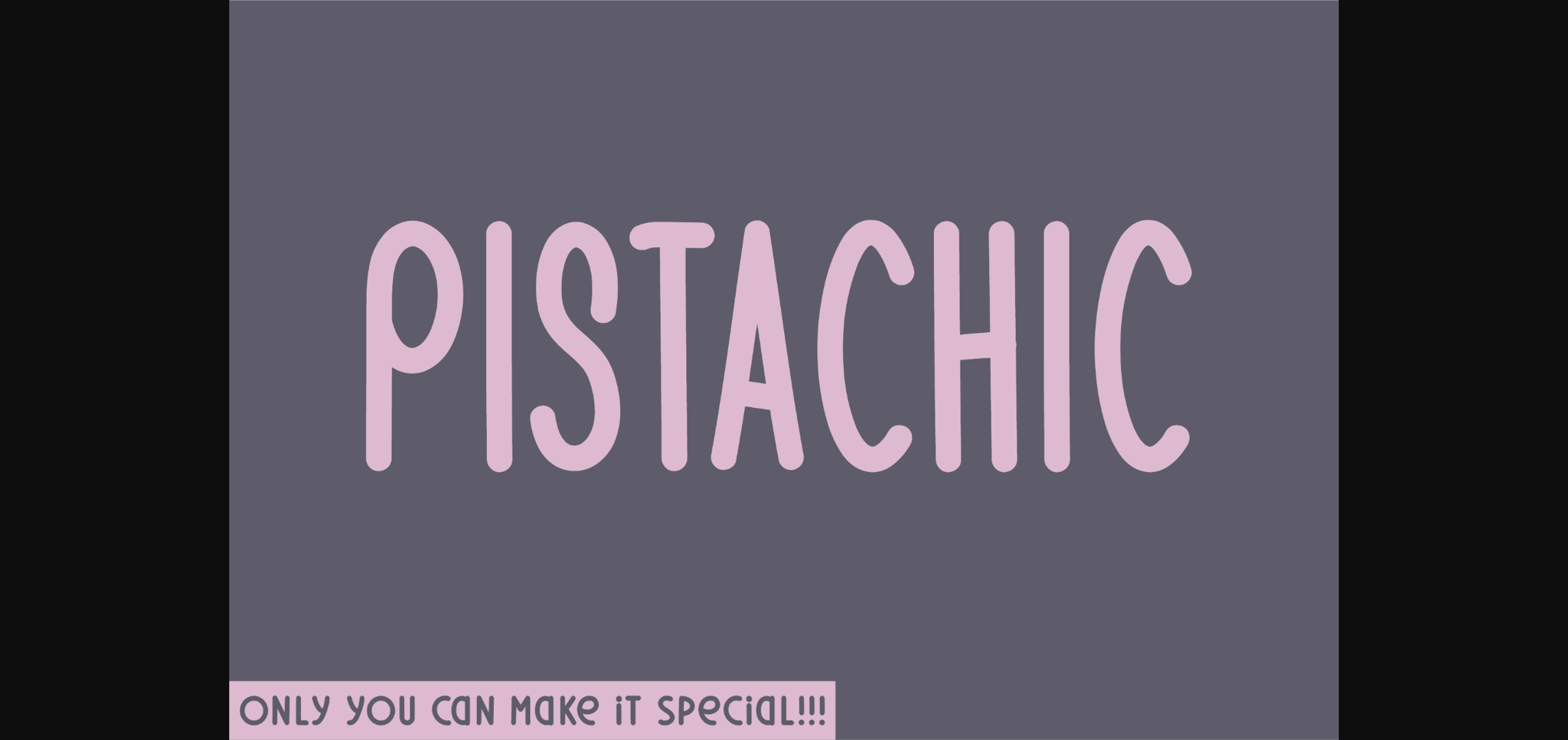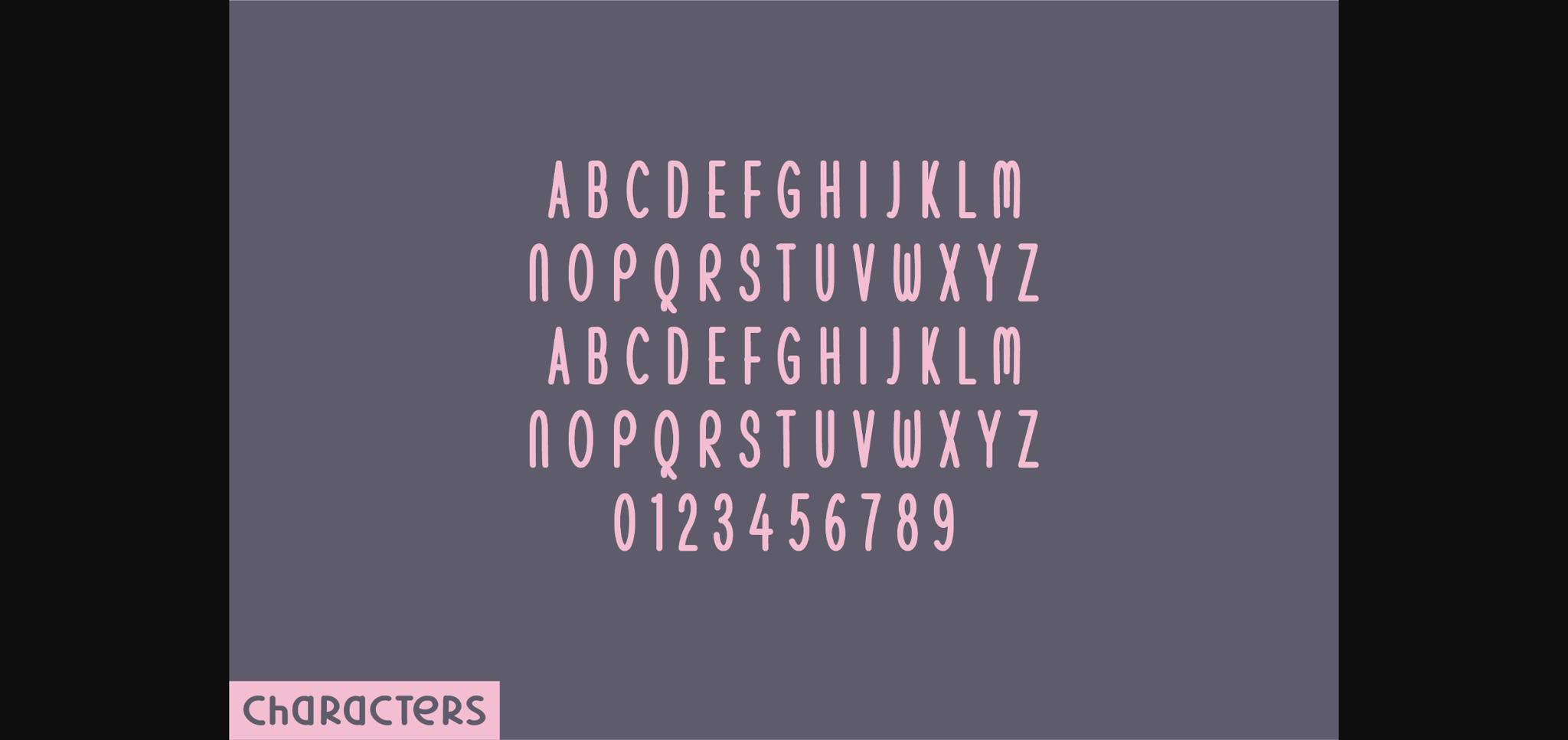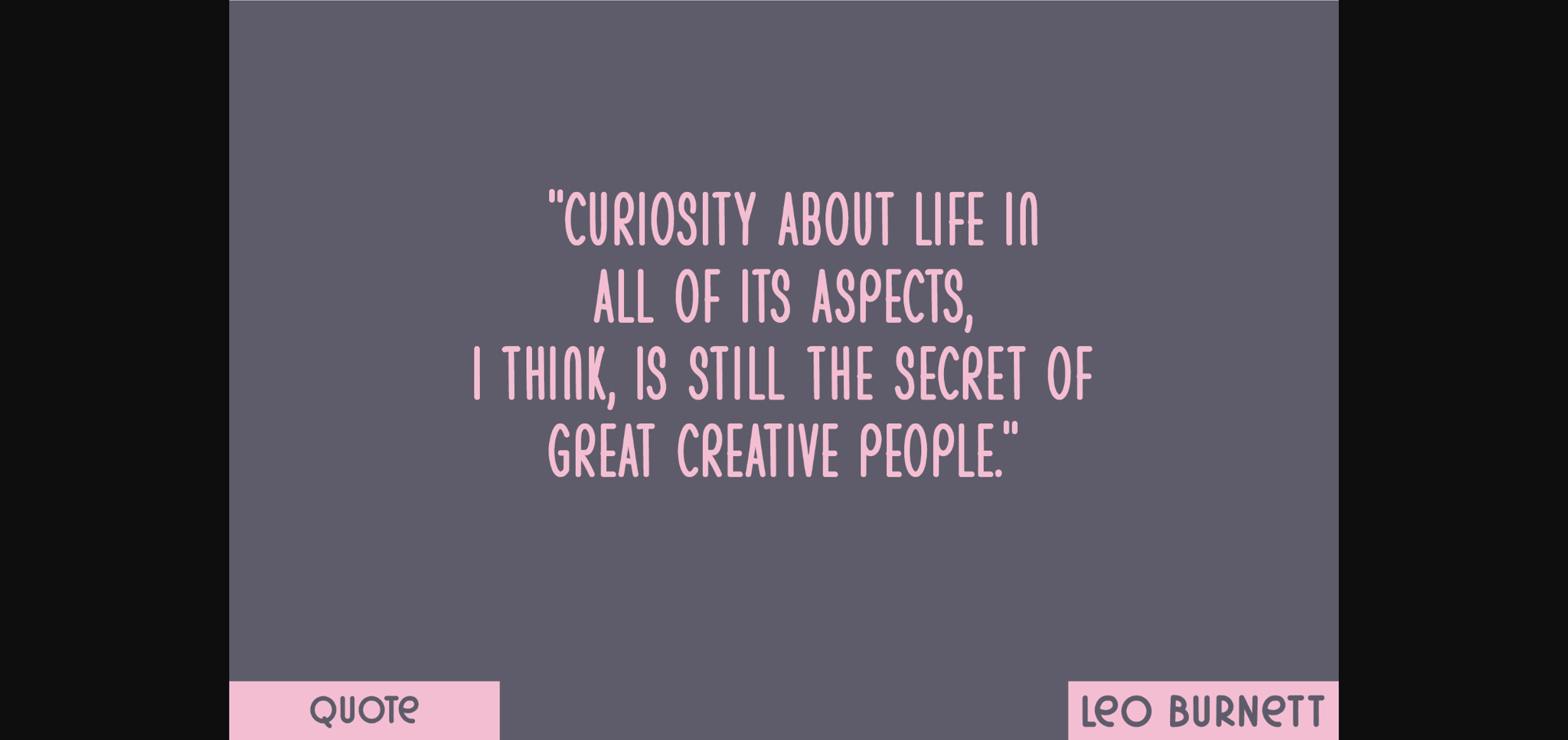
About Pistachic Font
Introducing Pistachic, a delightful sans serif display font overflowing with charm and character. Nestled within its design layout, find yourself enchanted by the uppercase letters, numbers and additional functions infused within. Unique rounded terminations on each letter give Pistachic a distinctively inviting appeal, subtly hinting at the charm of natural handwriting. Whatever your project, Pistachic is a perfect choice for designs in need of an organic, adorable touch. With Pistachic, imbue an air of whimsical beauty into your every creation.